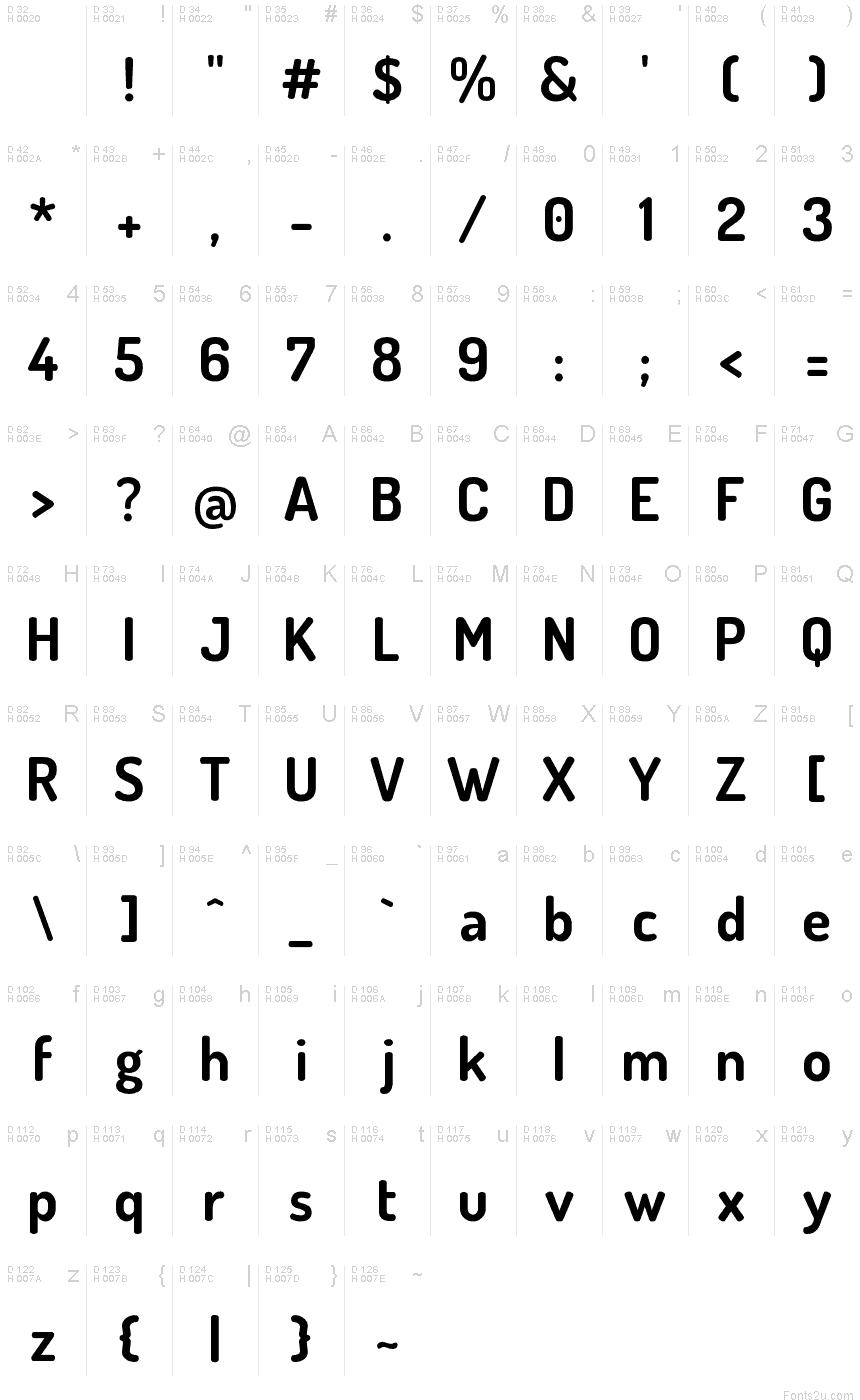
Terminal Dosis Bold Font Download. Terminal dosis extrabold font terminal dosis family consisting of 7 fonts. Making the web more beautiful, fast, and open through great typography.
Download terminal dosis font (7 styles). We like you to have some freedom over how the letters should look, so we bundled dosis with a few alternates that you can use to make your text look the way you want t. You can use the terminal dosis bold to create interesting designs, covers, shop and store name and logos.